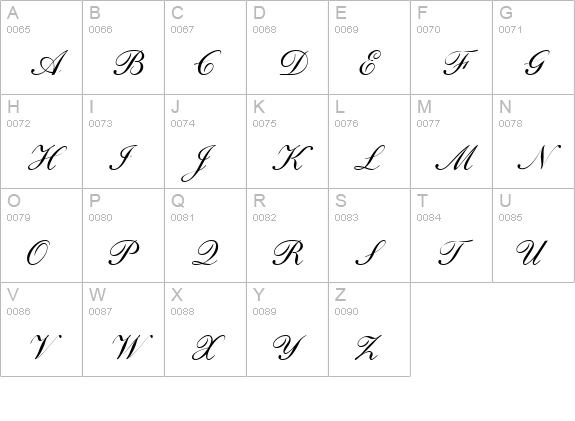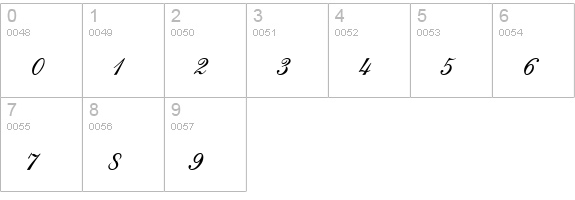
Sheer Beauty Regular Font Details
Sheer Beauty Regular is the standard, neutral variant in the Sheer typeface family \xE2\x80\x94 well suited to general body text, paragraphs, and standard typographic work.
Sheer Beauty Regular font is a stunning display of elegance and sophistication. With its delicate and graceful letterforms, this font is perfect for adding a touch of refinement to any project. The clean lines and balanced proportions give it a timeless appeal that will never go out of style. This font is not only visually pleasing but also highly versatile. It can be used for a wide range of design projects, from branding and packaging to invitations and editorial layouts. Its readability and legibility make it suitable for both print and digital applications. One of the best things about Sheer Beauty Regular font is that it is available for free. Yes, you read that right! You can freely download this font at FontsMarket.com, a trusted source for high-quality fonts. Whether you are a professional designer or a hobbyist, you can now enjoy the beauty of this font without any cost. So why wait? Enhance your designs with the sheer beauty of Sheer Beauty Regular font. Download it today from FontsMarket.com and unleash your creativity.